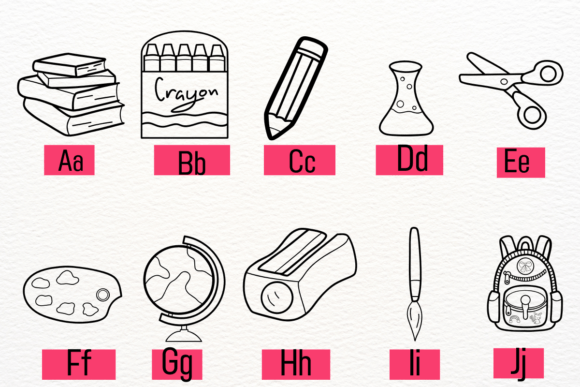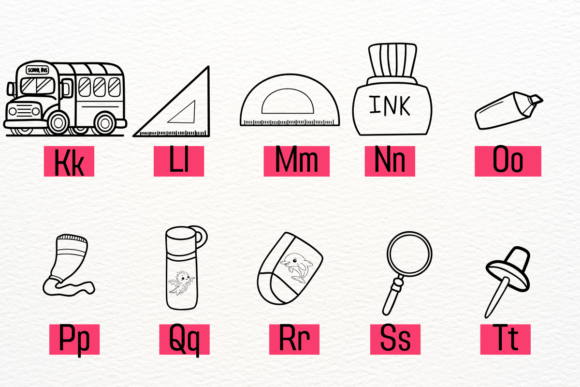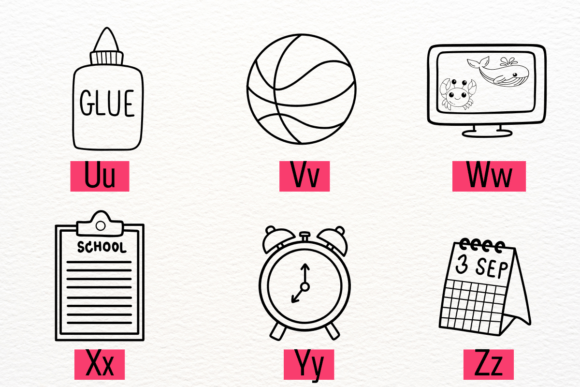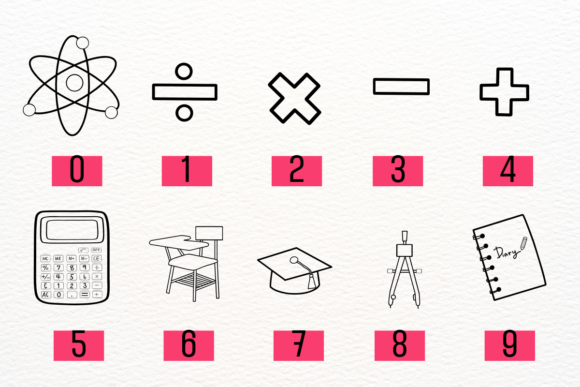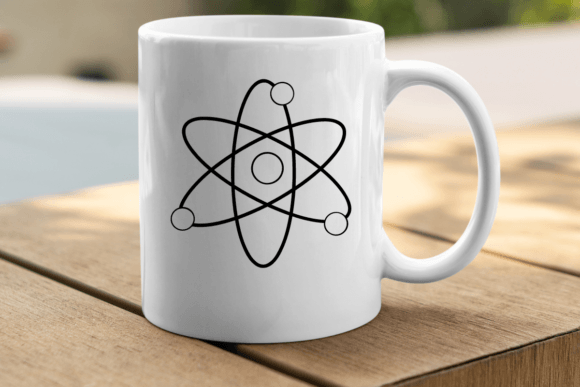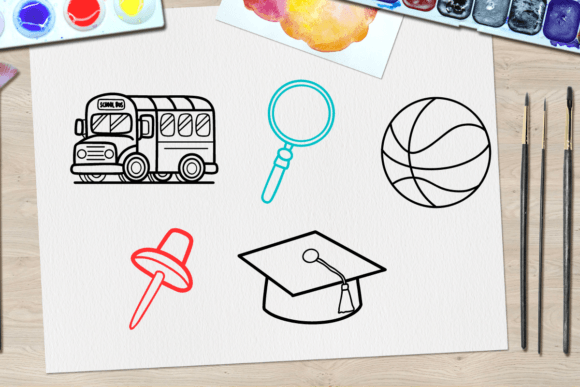
Bring Back to School Excitement with Our Delightful Dingbats Font
The new school year is just around the corner, and what better way to get into the spirit than with a fresh and exciting design element? Our “Back to School” dingbats font is here to add a playful and educational touch to your creative projects. This comprehensive font set includes two high-quality font files in both OTF and TTF formats, ensuring compatibility with a wide range of design software.
Whether you’re a designer, teacher, or crafter, our “Back to School” dingbats font offers a vast array of possibilities for your back-to-school creations. From vibrant posters and eye-catching invitations to engaging educational materials and fun crafts, these dingbats are the perfect addition to your design toolkit. The set features a delightful collection of school-themed icons, including:
- Pencils and pens to inspire creativity
- Books and reading materials for a love of learning
- Buses and transportation icons for a fun commute
- Apples and other treats for a sweet snack
- And many more delightful symbols to explore!
Meticulously Crafted for Quality and Detail
Each symbol in our “Back to School” dingbats font has been meticulously crafted to ensure a high level of detail and quality. The result is a set of icons that are not only visually appealing but also scalable to various sizes without losing their charm. Whether you’re designing for print or digital platforms, these dingbats will add a professional and creative touch to your work.
The versatility of our “Back to School” dingbats font makes it perfect for a wide range of projects, including:
- Posters and flyers for school events and activities
- Invitations and announcements for back-to-school nights
- Educational materials, such as worksheets and activity sheets
- Crafts and DIY projects for kids and adults alike
- Social media graphics and blog posts for teachers and educators
Get Ready to Inspire and Engage
With our “Back to School” dingbats font, you’re just a step away from adding a playful and educational touch to your designs. Whether you’re a seasoned designer or a crafty enthusiast, this font set is sure to inspire and engage your audience. So why wait? Download our “Back to School” dingbats font today and get ready to bring the excitement of the new school year to your creative projects!
- Delightful array of school-themed icons
- Meticulously crafted for quality and detail